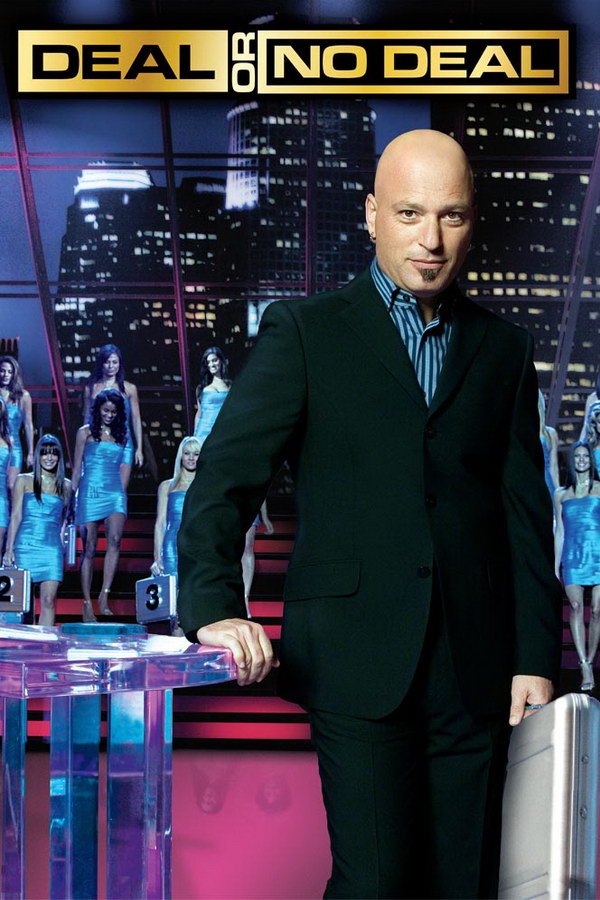
Deal or No Deal Font
Fonts in UseDeal or No Deal is a game show where contestants try to win a large cash prize by choosing one briefcase out of 26, each containing a hidden amount of money, and then deciding whether to accept or decline the banker's offers to buy their chosen briefcase.
The likely font utilized for the title of the TV series is Eurostile Ext Black, a geometric sans-serif typeface created by Aldo Novarese in 1962. Additional information about this font can be found here.